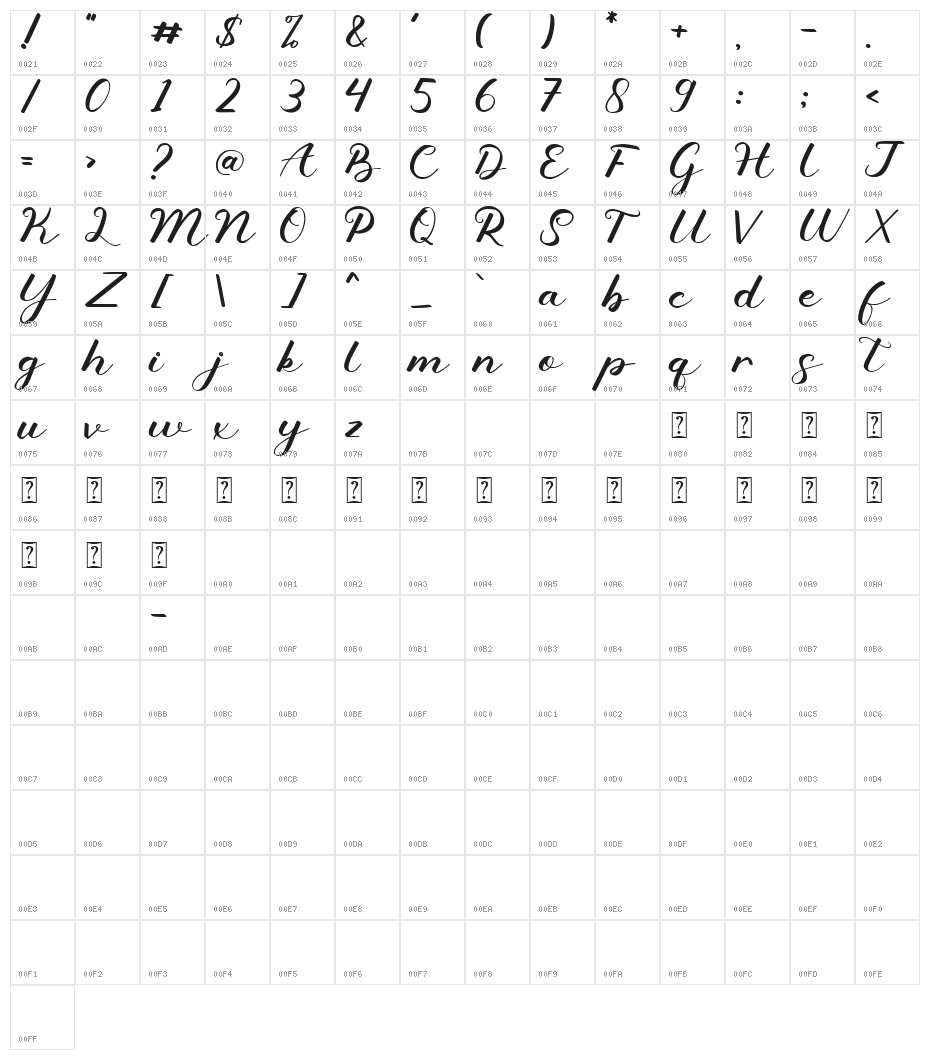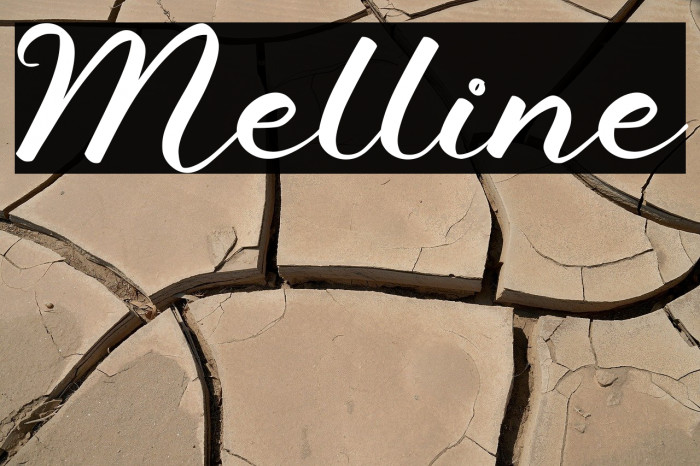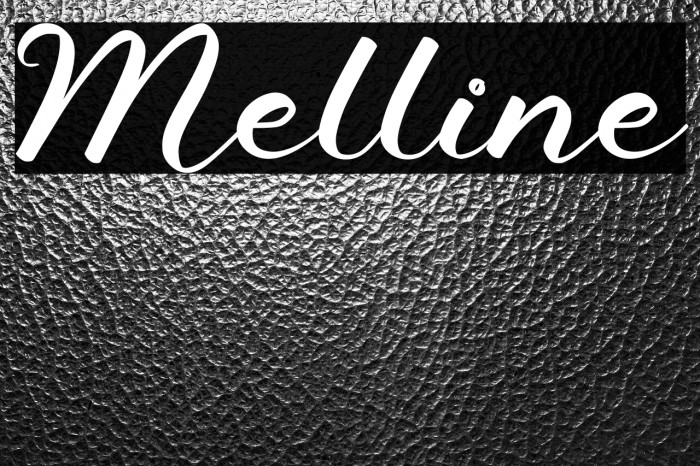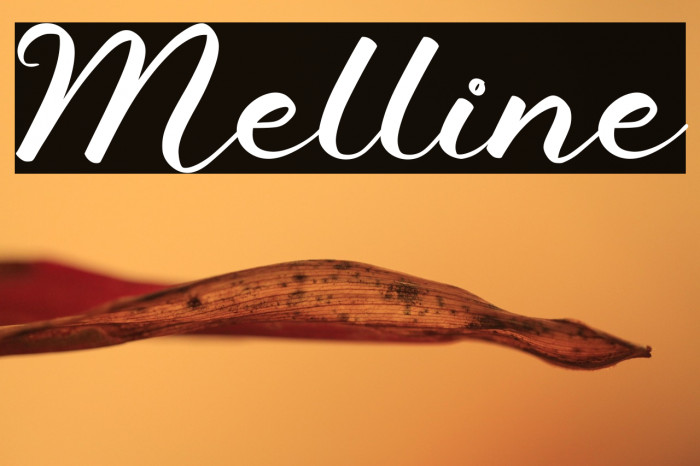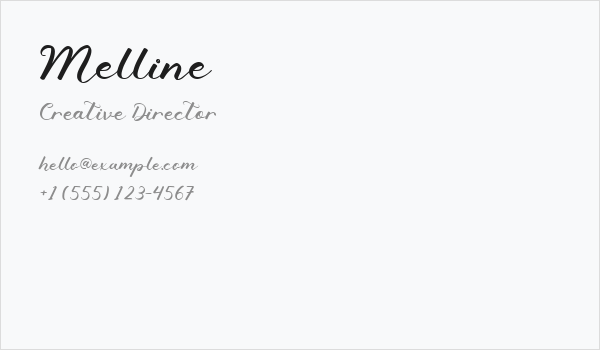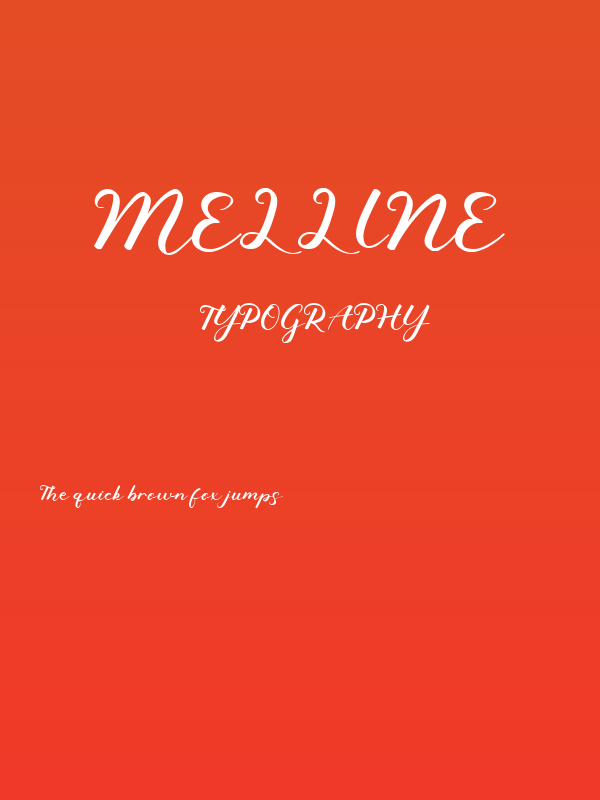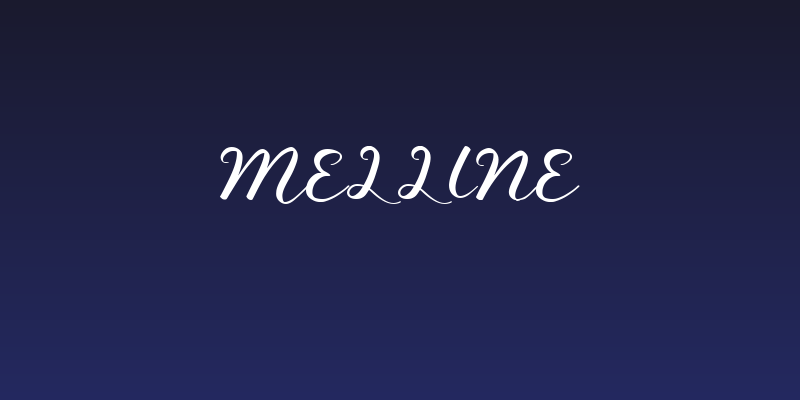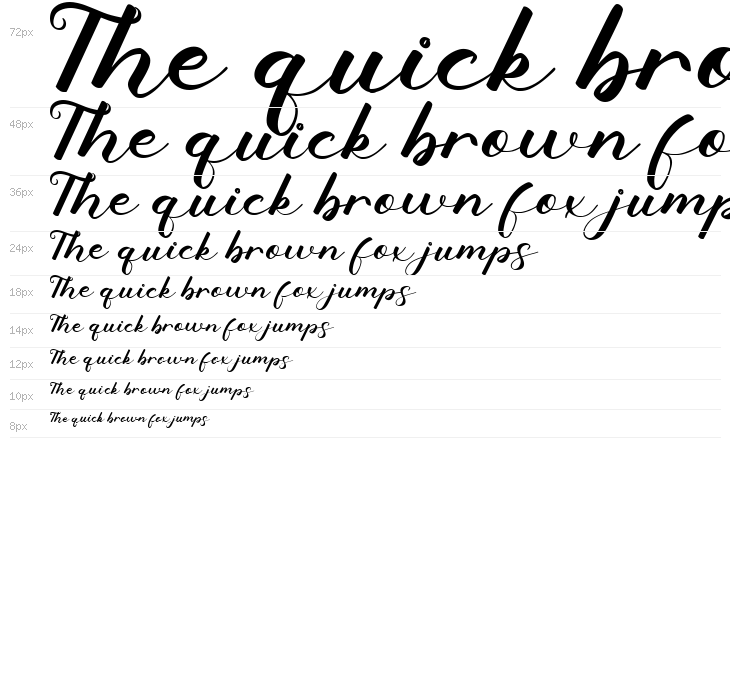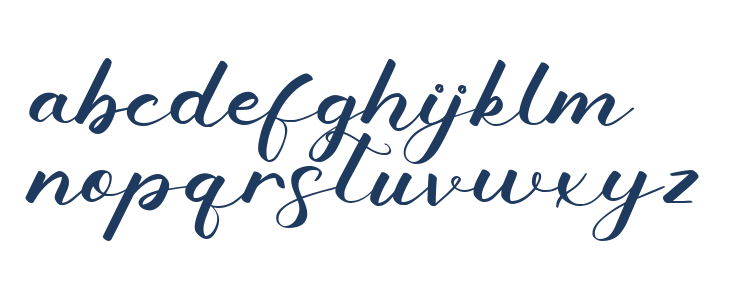
Melline Font
Melline Description
This font exhibits a sophisticated and elegant script style, characterized by its fluid, cursive letterforms that convey a sense of grace and movement. The uppercase letters are particularly ornate, with sweeping ascenders and descenders that add a touch of drama and flair. The lowercase letters maintain a consistent flow, enhancing readability while preserving the font's decorative nature. The numerals are designed with a similar elegance, ensuring they complement the overall aesthetic. Special characters are thoughtfully integrated, maintaining the font's cohesive look. This font is ideal for projects that require a touch of elegance and sophistication, such as wedding invitations, luxury branding, or high-end product packaging.
| Overall Style | Elegant |
| Use Case | Logos, Invitations, Branding |
| Proposed Projects | Wedding invitations, luxury branding, high-end product packaging, elegant stationery. |